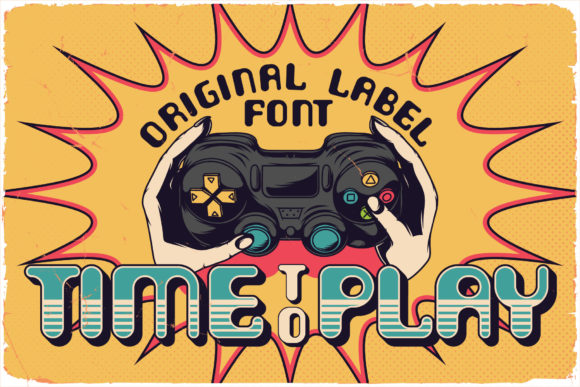
**Introducing Time to Play – The Quintessential Display Font for Creative Expression**
Prepare to embark on a whimsical journey through the world of typography with our captivating Time to Play font, a peerless creation from Vozzy Vintage Fonts And Graphics. This remarkable font family exudes charm and playfulness, making it an ideal choice for a plethora of design endeavors.
Time to Play is a stunning duo display font, meticulously crafted to evoke a sense of nostalgia and lighthearted fun. Its vintage-inspired aesthetic is reminiscent of classic arcade games and retro soda shops, instantly transporting you back to a simpler, more carefree time. Whether you're designing eye-catching logos, creating vibrant posters, or adding a touch of whimsy to your digital projects, Time to Play is the perfect companion for your creative vision.
Immerse yourself in the boundless versatility of Time to Play, a font that effortlessly adapts to a myriad of design styles and applications. Let your imagination run wild as you utilize this font to craft stunning greeting cards, add a touch of personality to your presentations, or create unique and memorable crafts. The possibilities are endless with Time to Play, your trusted font for injecting a dose of charm and individuality into any project.
**Unleash Your Creativity with Time to Play**
Unlock the full potential of your creative genius with Time to Play, a font that effortlessly captures the essence of fun and lightheartedness. Picture yourself creating eye-catching social media posts that pop off the screen, captivating your audience with their playful charm. Imagine designing vibrant book covers that exude an aura of nostalgia, inviting readers to delve into the stories within. With Time to Play, the possibilities are boundless, empowering you to transform your creative vision into a tangible reality.
**Time to Play – A Versatile Font for Any Occasion**
Time to Play is not just a font; it's an open invitation to unleash your creativity and embark on a journey of self-expression. Whether you're a seasoned designer seeking to elevate your projects or a novice just starting your design journey, Time to Play is the perfect font to accompany you along the way. Its user-friendly nature makes it accessible to designers of all skill levels, ensuring that your creative vision is effortlessly translated into captivating designs.